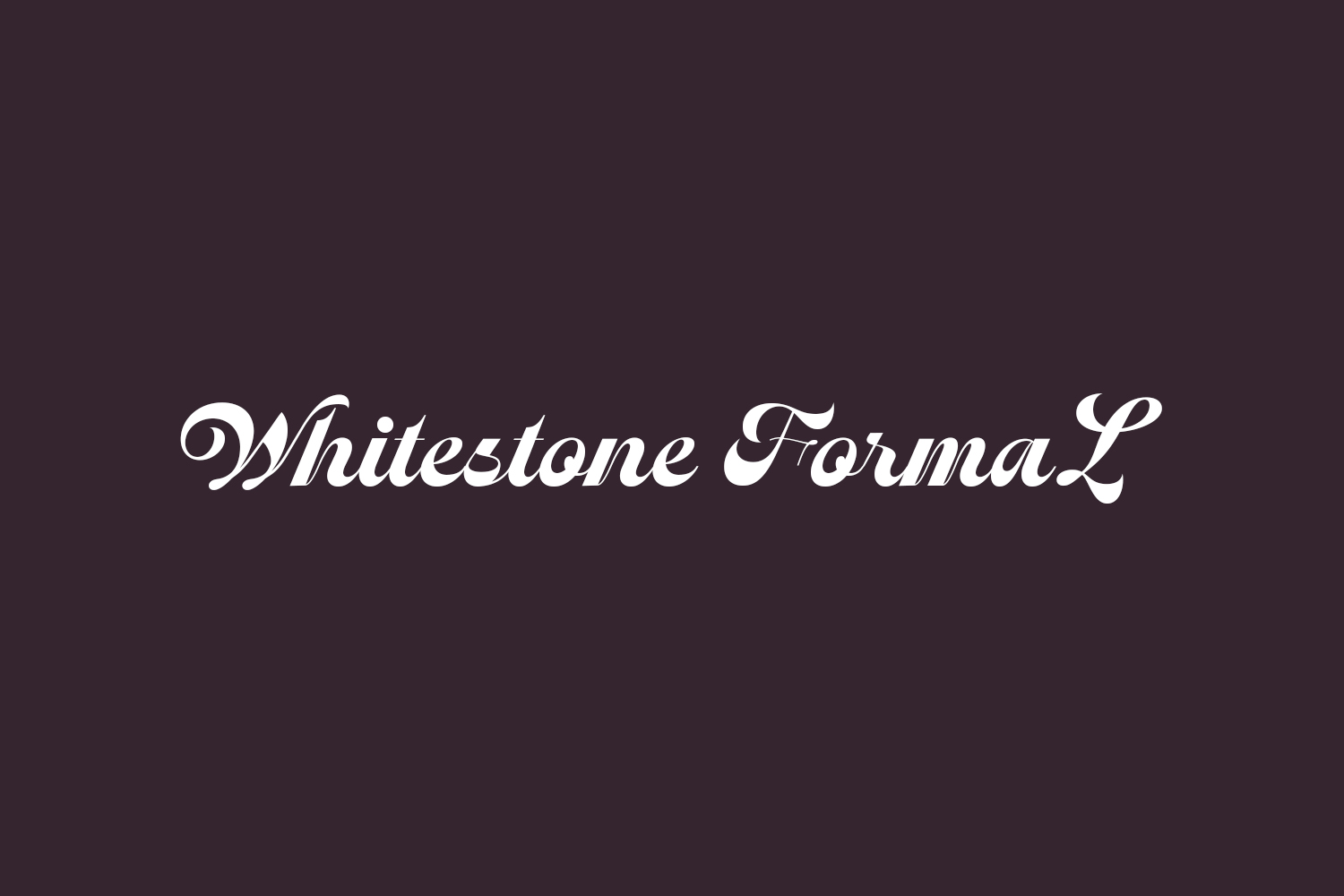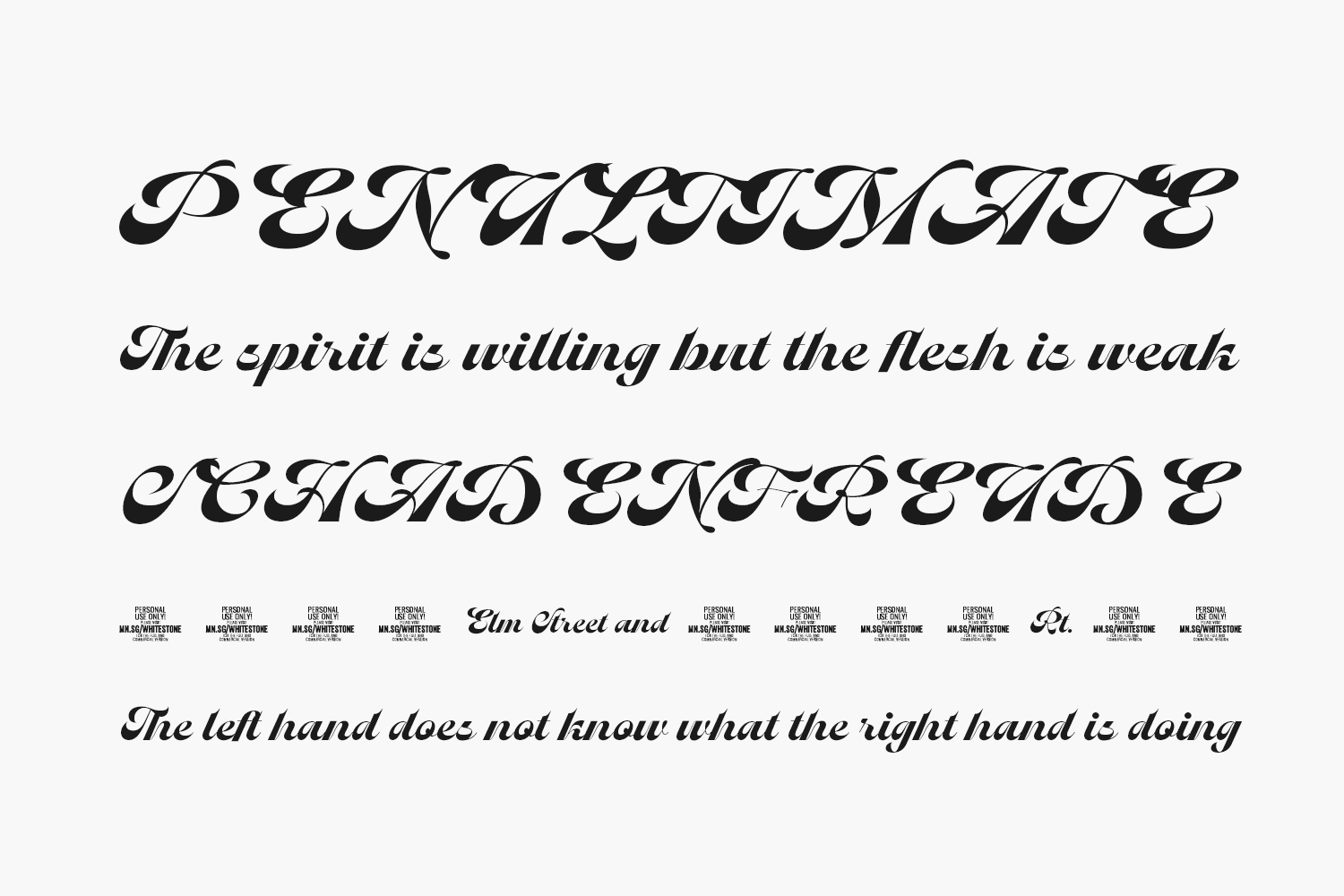
Whitestone Formal – Free Elegant Script Font Inspired by Victorian Calligraphy
Whitestone Formal is a vintage-inspired calligraphy script designed by Måns Grebäck, offering elegant flowing letterforms with heavy strokes and a Victorian-era charm. Its weighty, ornamental characters deliver depth and formality—ideal for wedding invitations, luxury branding, editorial headers, book or movie titles, and stately logos. This OTF version is available for free; commercial licensing can be obtained directly from the designer’s site.
Why Choose Whitestone Formal?
- Victorian Calligraphic Style: Stylish cursive strokes with ornate details bring period elegance.
- High Visual Presence: Thick swashes and bold glyphs create strong display impact.
- Advanced OpenType Support: Offers ligatures, alternates, and stylistic options in full version.
- Wide Language Coverage: Includes Latin-based scripts—English, French, Spanish, Turkish, Swahili, etc.
Where to Use Whitestone Formal?
- Wedding & Event Stationery: Brings romantic and luxurious flair to invites and menus.
- Branding & Logos: Works beautifully for high-end, boutique, and fashion identities.
- Book, Album & Movie Titles: Exceptional for titles that demand classic elegance.
- Editorial Design: Enhances magazine headers and feature layouts with refined character.
- Luxury Packaging: Elegant label text for premium products like perfume or wine.
Design Tips with Whitestone Formal
Use at larger sizes (≥36 pt) to showcase its ornate curves. Pair it with a clean sans-serif such as Armstrong or Lato to maintain balance. Choose soft neutral or metallic color palettes—cream, gold, blush—for timeless appeal. Limit use to short phrases or names to let the script shine.